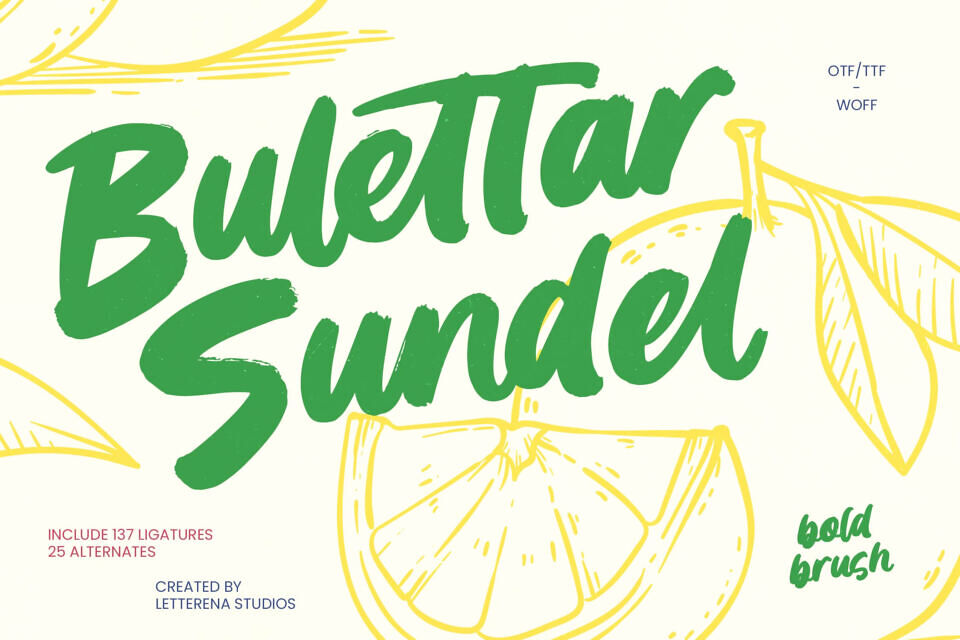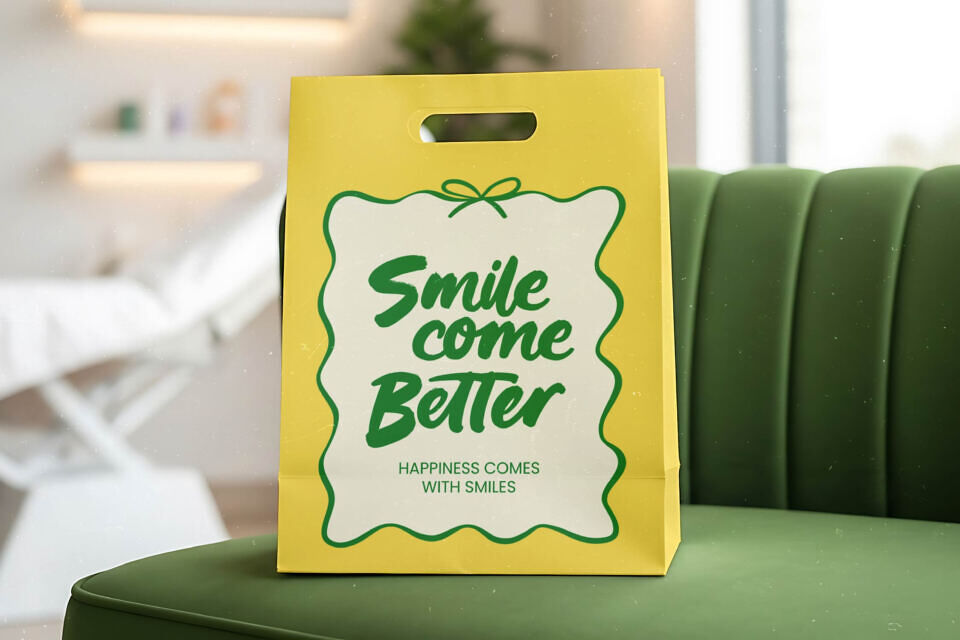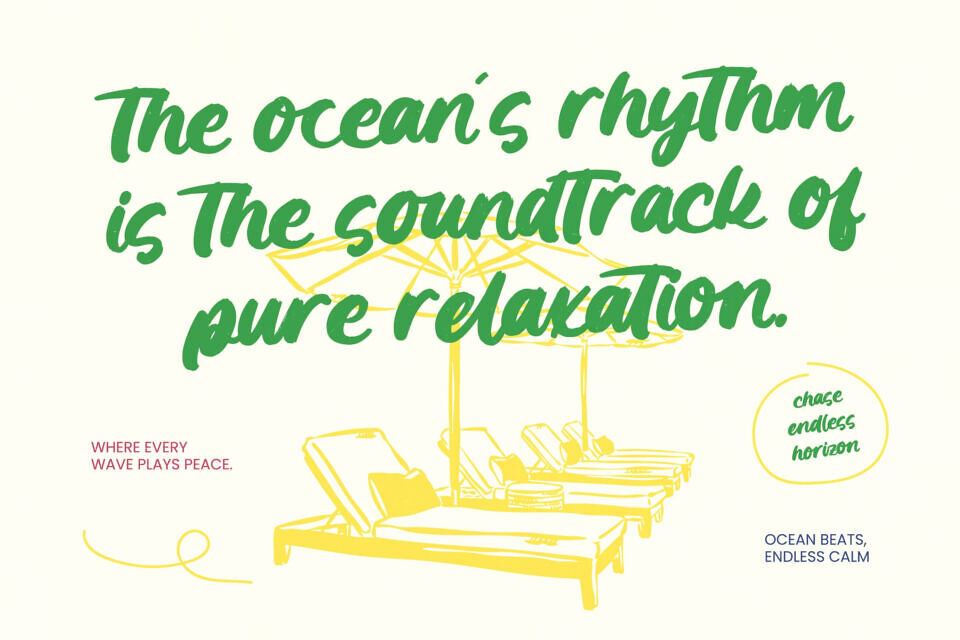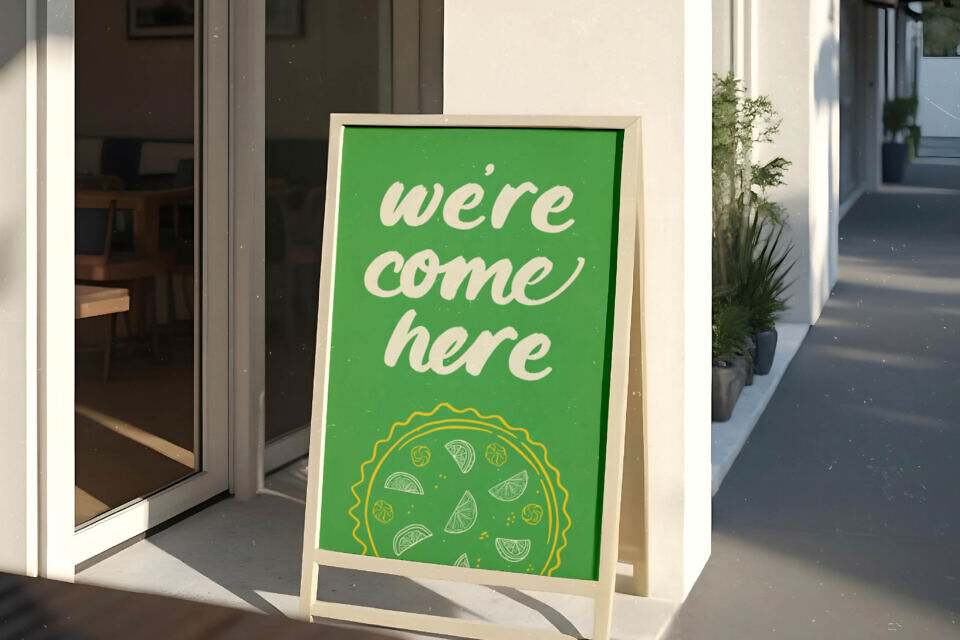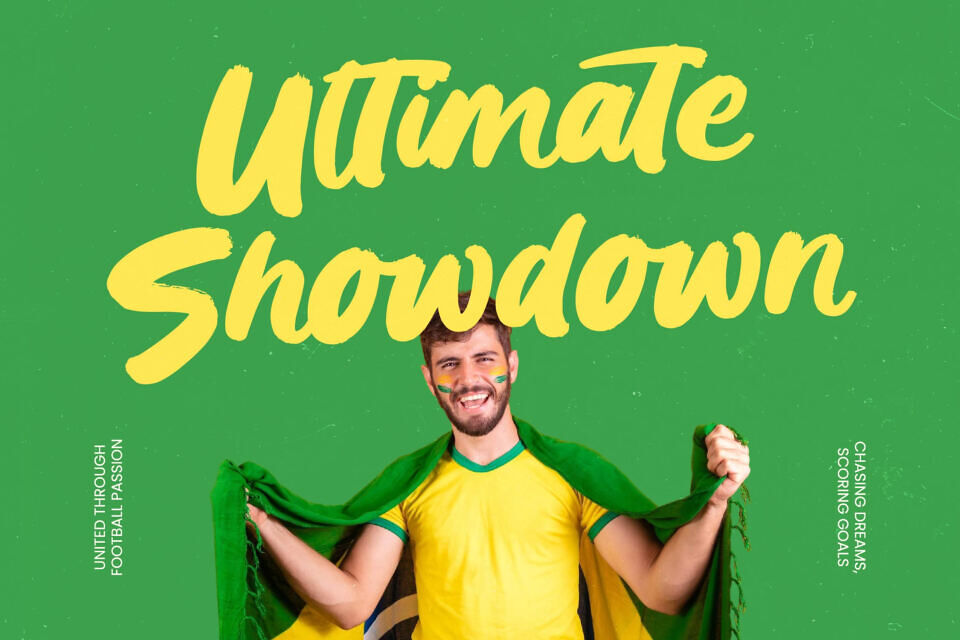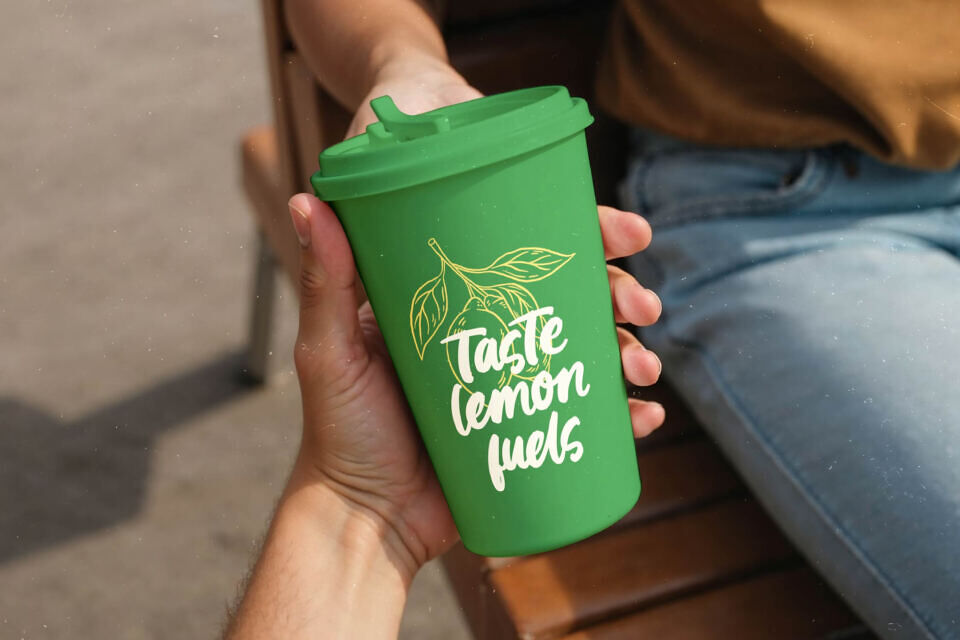
Elevate your designs with Bulettar Sundel, a bold brush script that combines hand-drawn texture with modern style. With 137 ligatures and 25 alternates, it adds a unique touch to compositions. This versatile font supports multiple languages, making it perfect for global projects.
Use it for luxury branding, packaging, or editorial design to create striking visuals and cohesive brand identities. Its artistic flair and technical precision make it a valuable asset for designers seeking to captivate their audience with a bold, refined font.